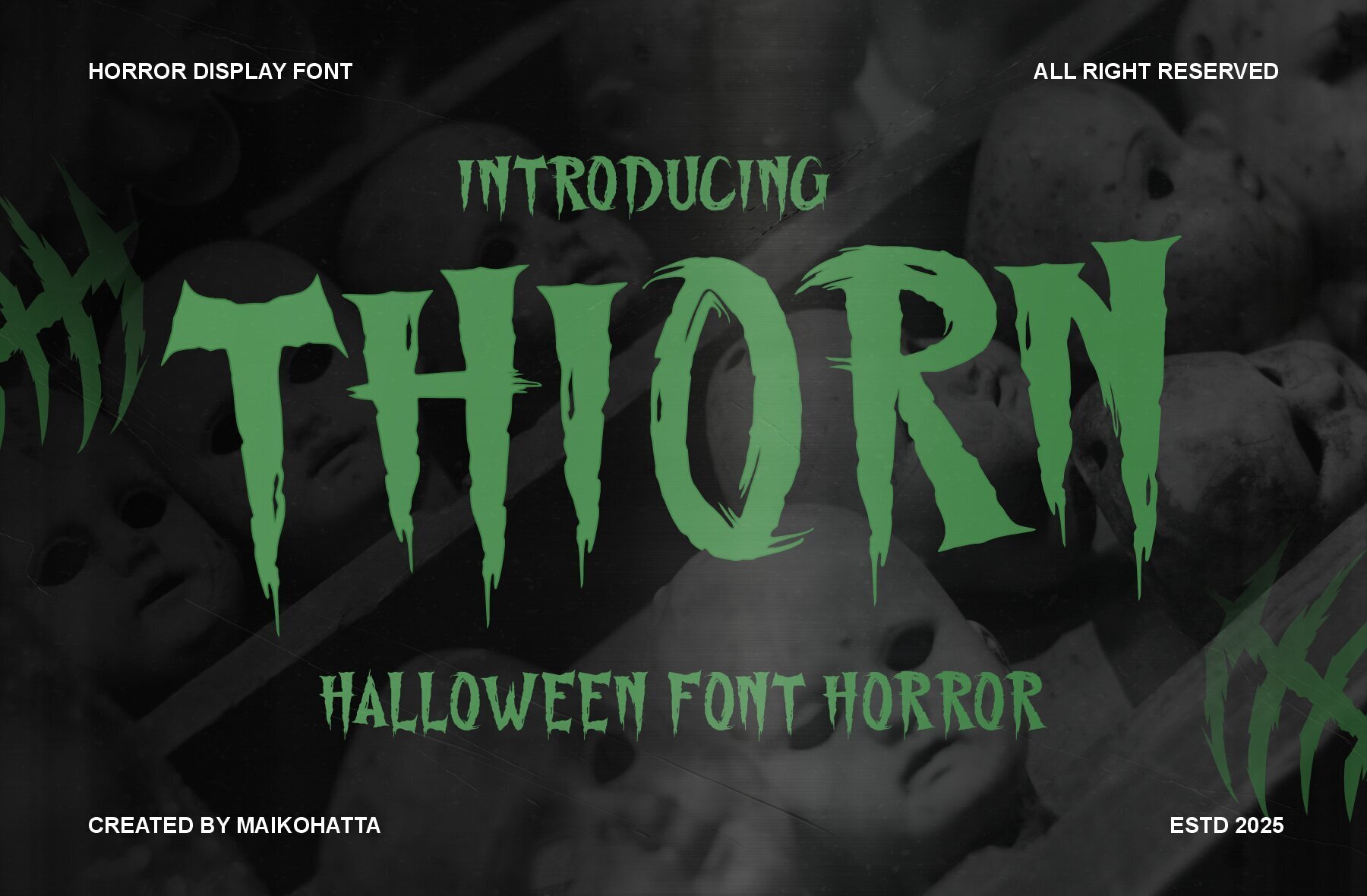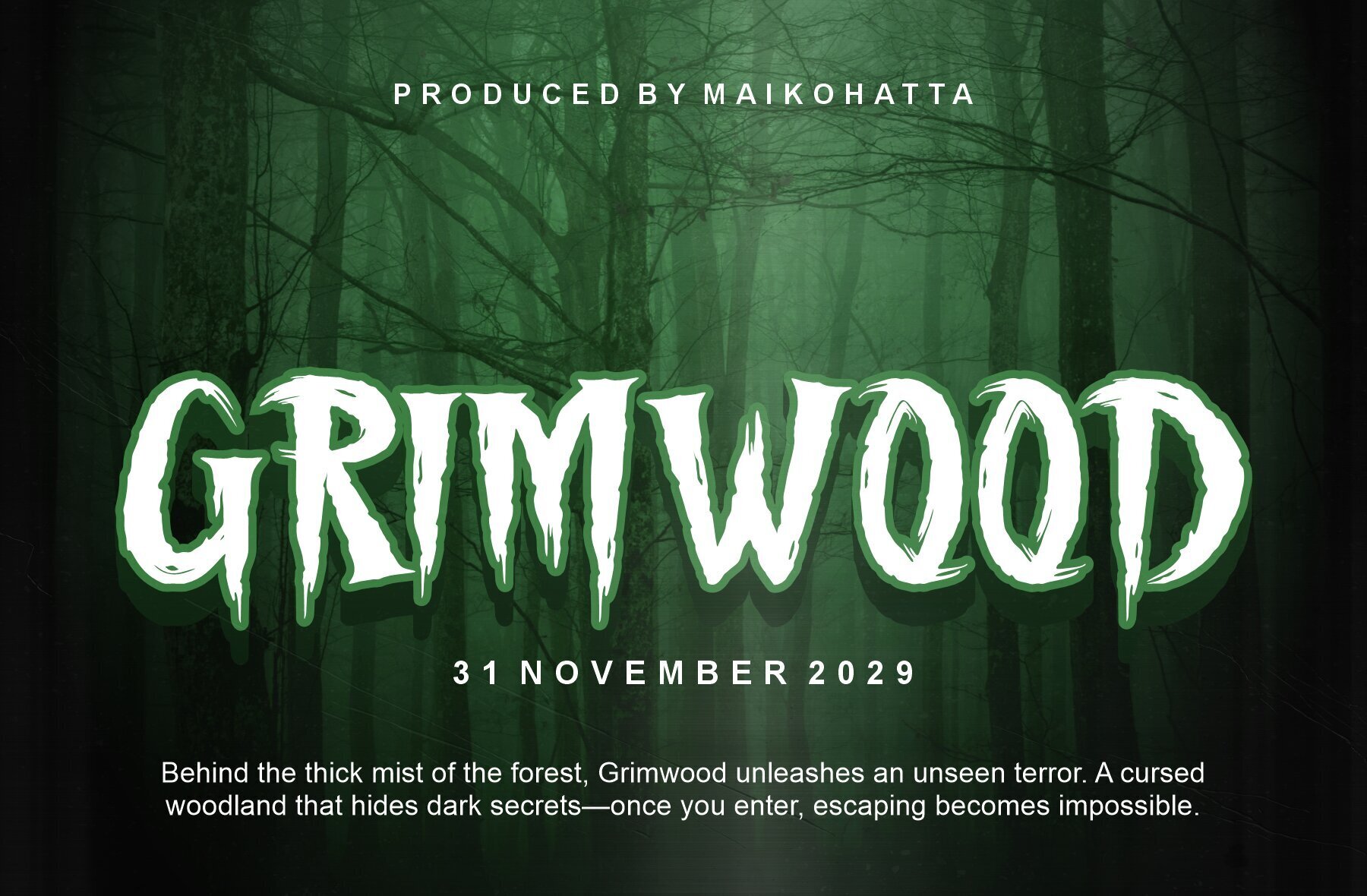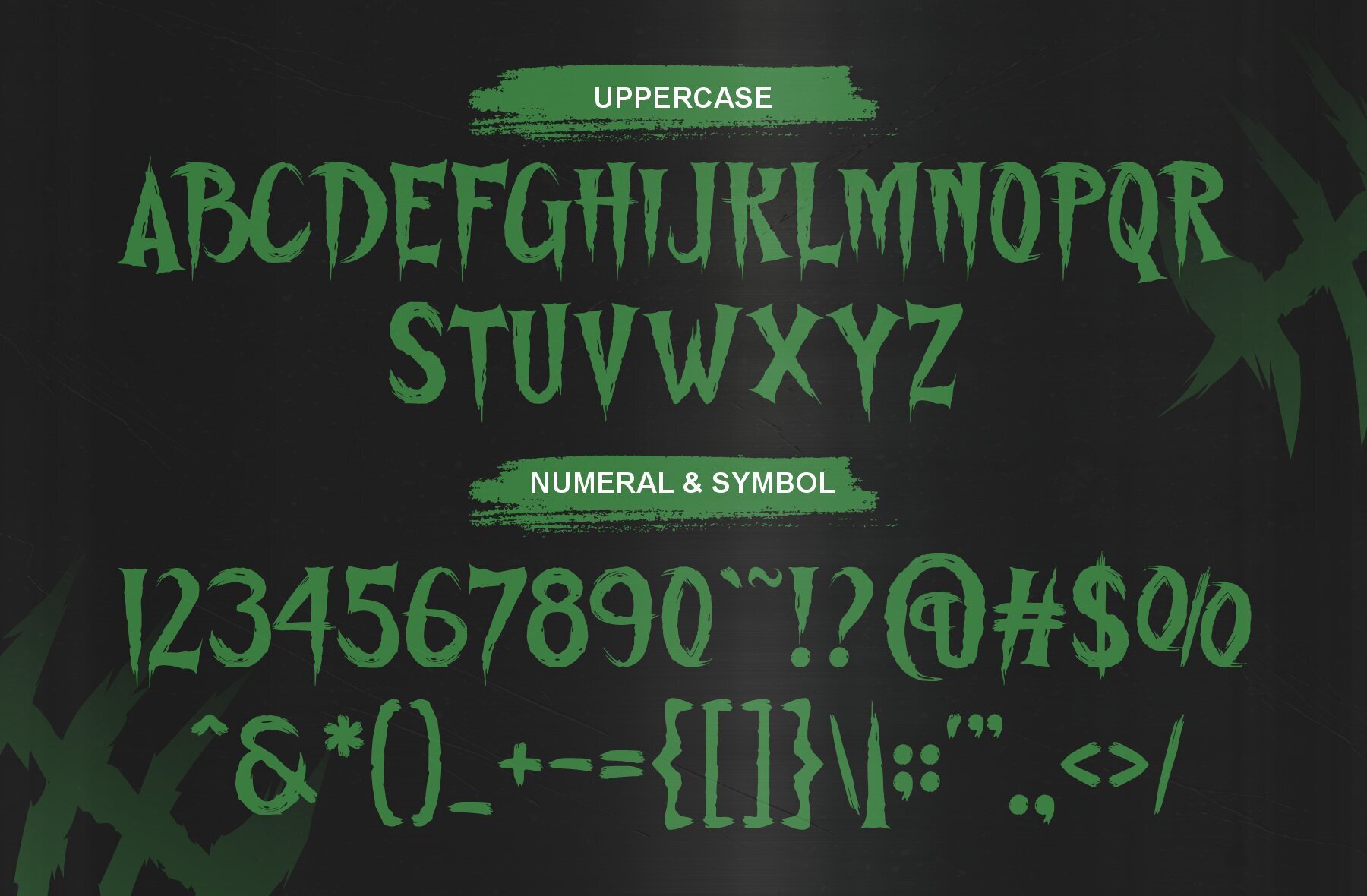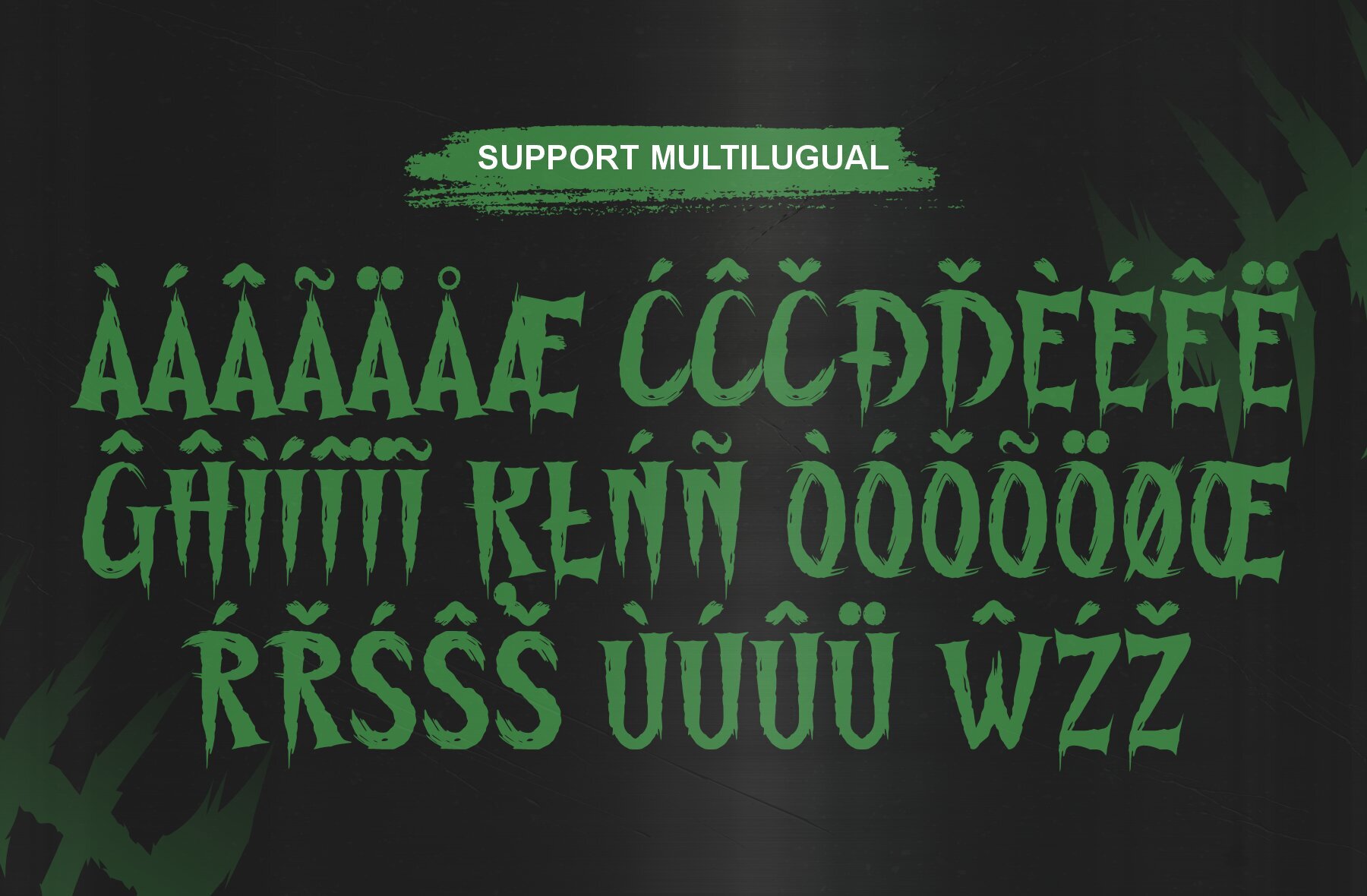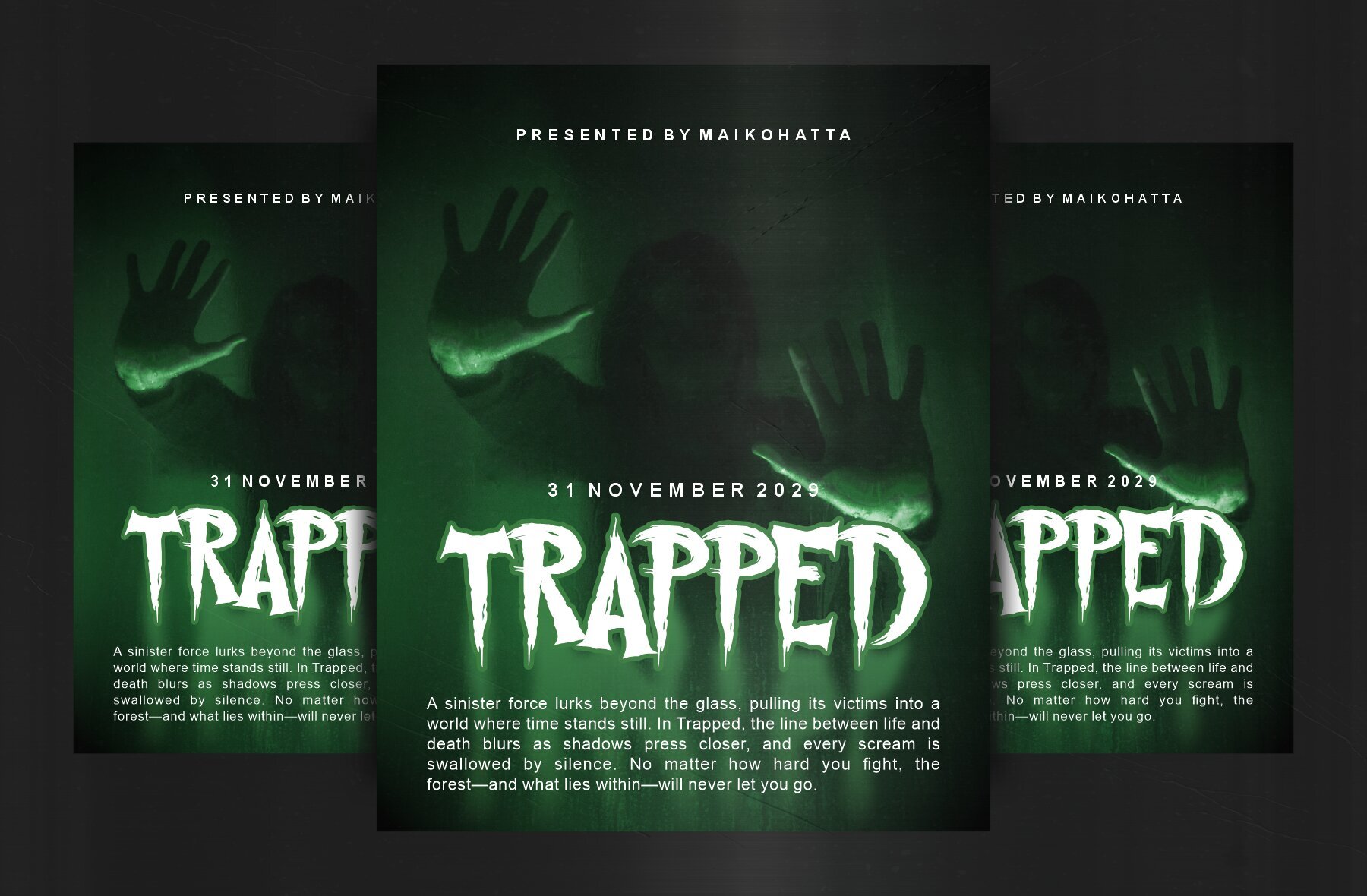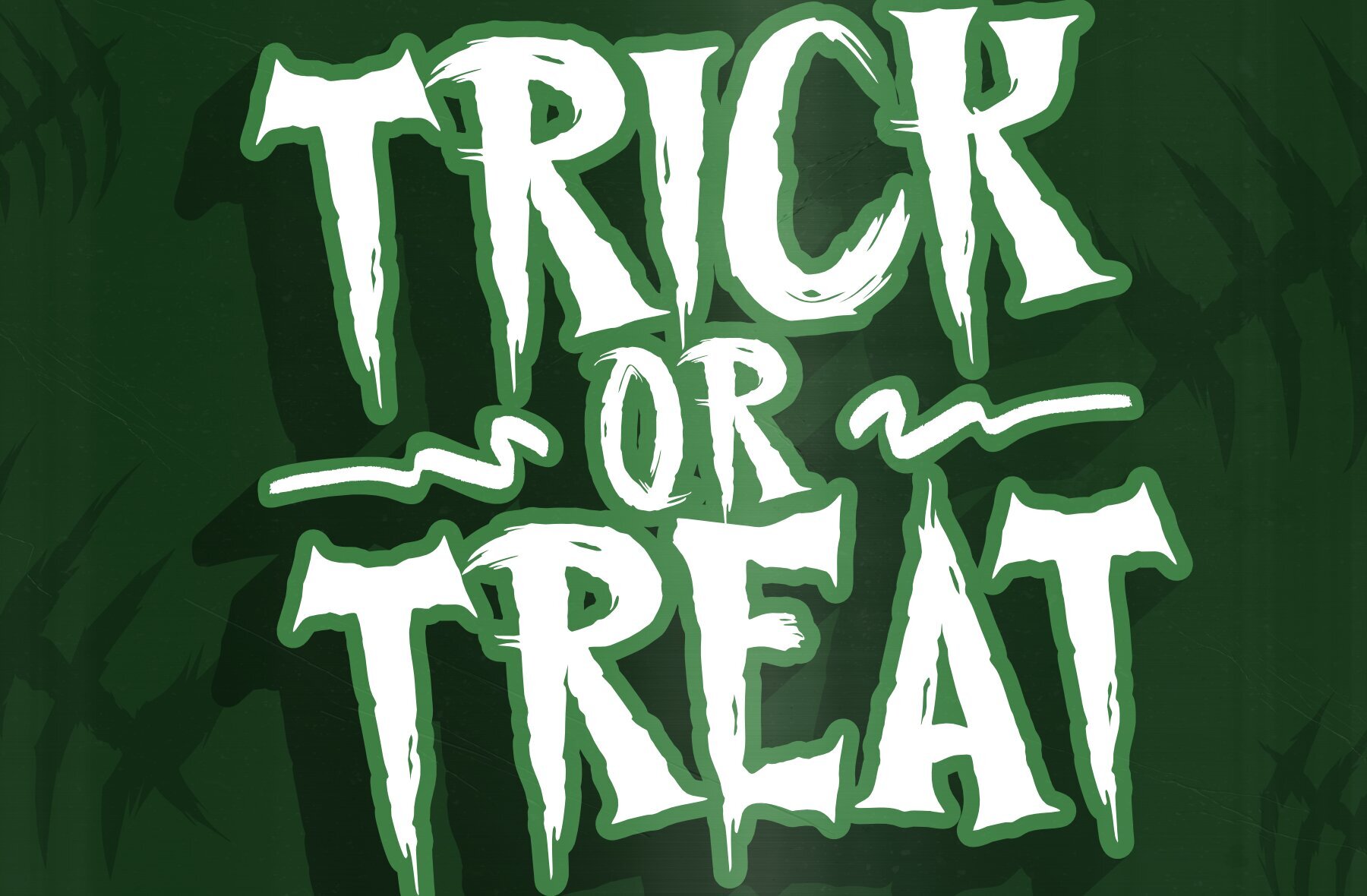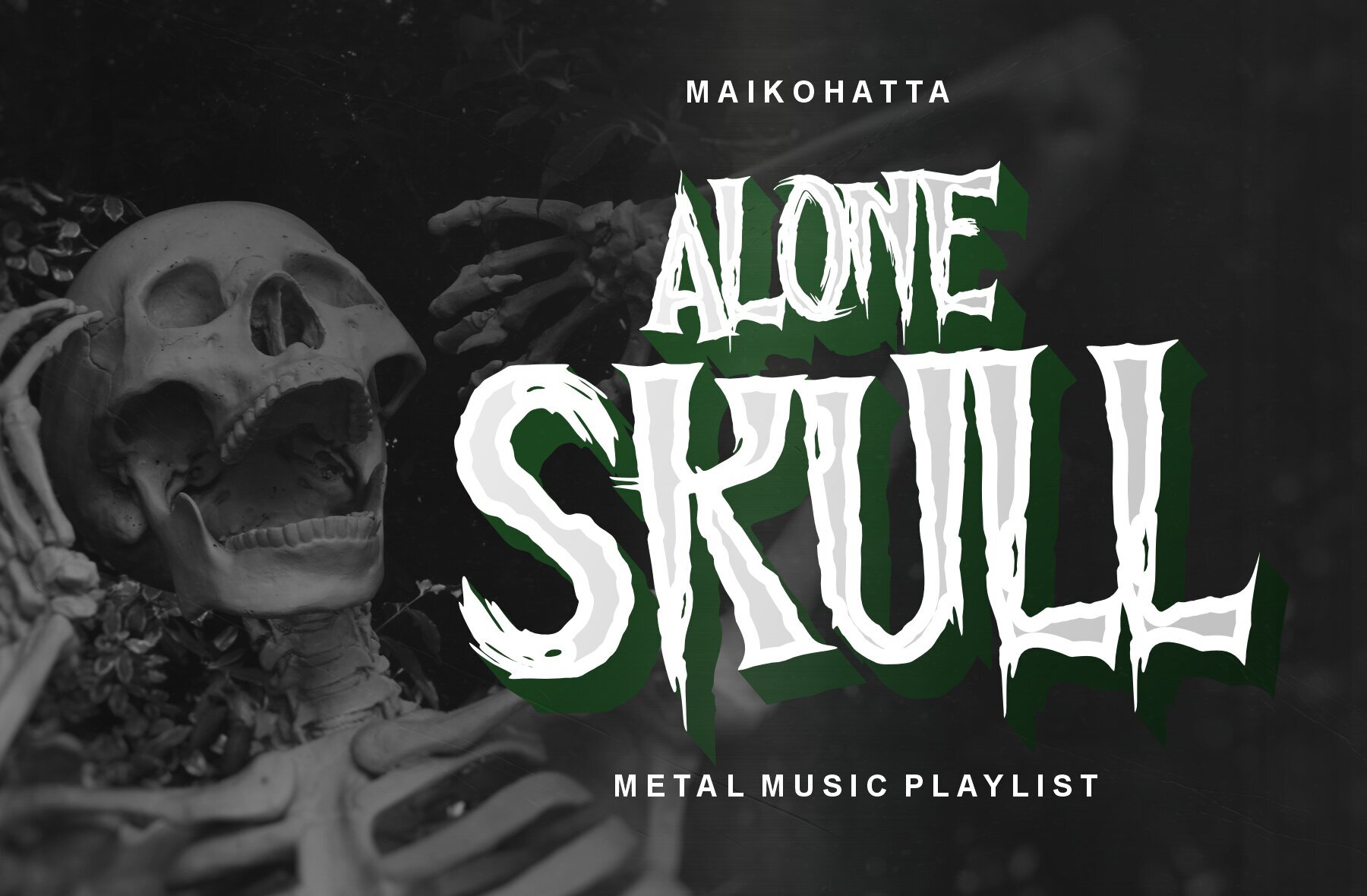
Thiorn Font
Thiorn: The Horrifying Typeface for Halloween
Thiorn stands as a bold testament to horror-themed design, marrying jagged strokes with dripping details to evoke a sense of eerie anticipation. This display font embodies the spirit of Halloween with its unsettling irregularities, making it the ideal choice for creatives seeking to instill fear. Whether designing horror movie posters, sending party invitations, or crafting creepy book covers, Thiorn fits perfectly in any context where a sinister and dark atmosphere is required.
The font's distressed, hand-drawn appearance adds a layer of authenticity to any terrifying project, ensuring your designs leave a lasting mark of dread.
• Halloween designs
• Horror movie titles
• Creepy posters and flyers
• Haunted house branding
• Scary game graphics